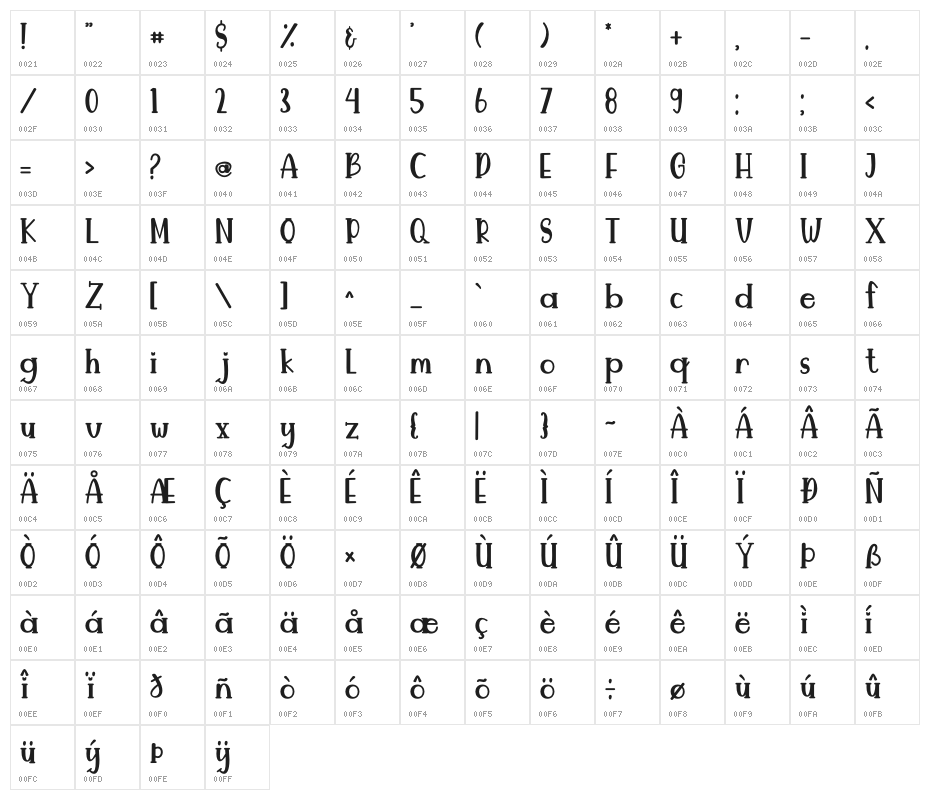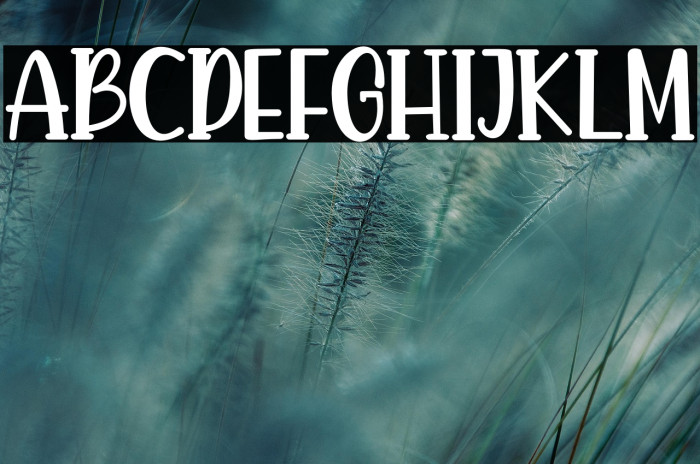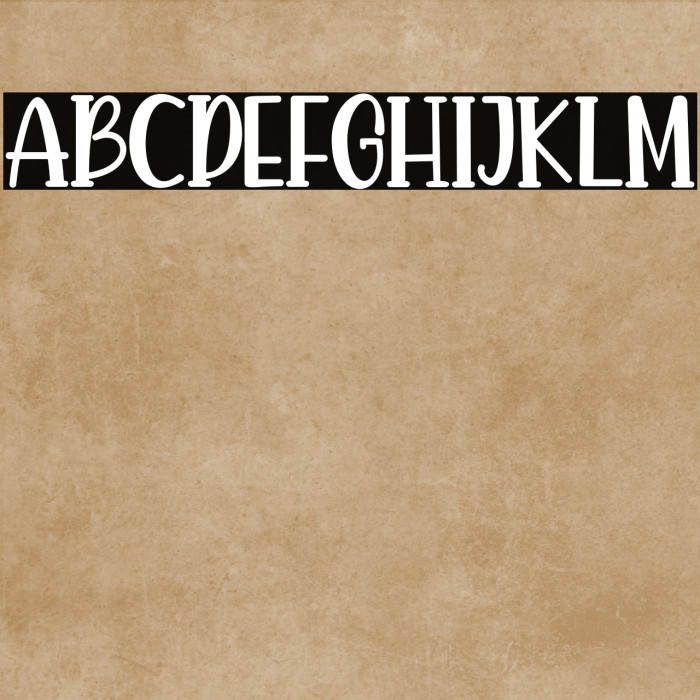
Maestro Font
Maestro Description
This font features a playful and whimsical style, characterized by its bold and rounded letterforms. The uppercase letters are tall and slightly narrow, with a consistent stroke width that gives them a strong presence. The lowercase letters maintain a similar style, with some characters featuring unique flourishes that add to the font's charm. The numerals are clear and easy to read, matching the overall aesthetic of the alphabet. Special characters are included, maintaining the same playful and bold design. This font is perfect for projects that require a fun and engaging look.
| Proposed Projects | Ideal for children's books, playful branding, greeting cards, and creative posters. |